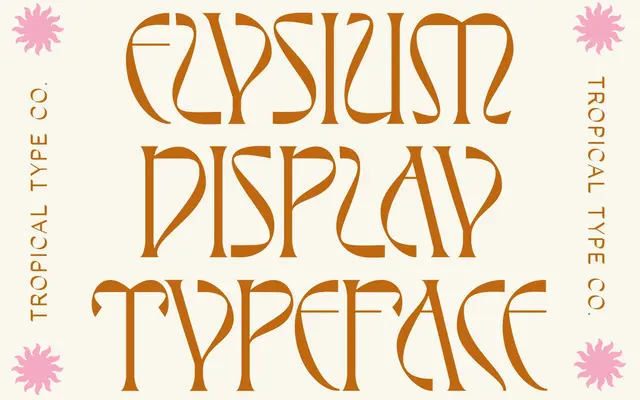
Elysium Display Font
A single-weight all-caps display typeface mixing sweeping curves with sharp angular details for a futurist-with-nostalgia effect.
Built for headline and branding use, Elysium pairs bold, rounded strokes with angular cuts to create a tension between retro and forward-looking aesthetics. The family ships with uppercase and lowercase sets alongside alternates for both, plus number alternates, giving some compositional variety within a single weight. Extended Latin diacritics cover a reasonable spread of European languages.
Described explicitly as a modern display caps typeface, combining bold curves with angular details for headline use rather than text setting.